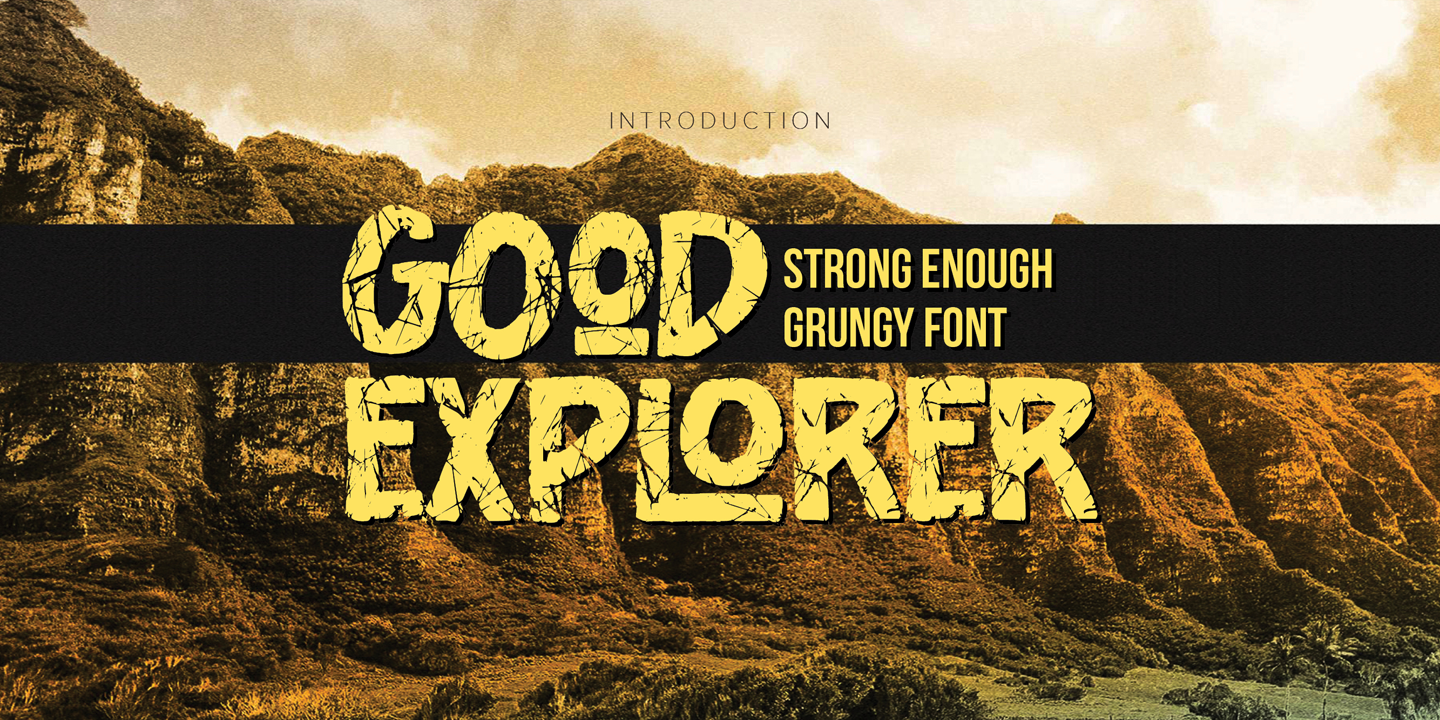
Good Explorer Font is perfect for adventure travel branding, outdoor gear packaging, expedition company logos, nature documentary titles, camping equipment labels, hiking trail signage, wilderness photography portfolios, and exploration-themed marketing campaigns. This adventurous typeface excels in applications where discovery spirit and outdoor exploration are essential.
What makes Good Explorer Font so exciting is its inspiring ability to capture the boundless spirit of discovery and adventure through dynamic letterforms that embody the thrill of exploring uncharted territories and natural wonders. The font features energetic character shapes with compass-inspired details and expedition-influenced styling that evoke images of mountain peaks, forest trails, and exciting geographical discoveries. Its adventure-driven design philosophy combines exploration authenticity with contemporary functionality, making it perfect for outdoor brands seeking to convey wanderlust, discovery passion, and connection to nature exploration and adventure travel communities.
Good Explorer Font belongs to the adventure display font family, specifically designed for outdoor and exploration-themed branding applications. This typeface family emphasizes dynamic visual impact through expedition-inspired styling and adventure character elements, ensuring authentic exploration presentation across various outdoor and travel-focused design projects.
Embark on creative adventures with Good Explorer Font Free Download, a typeface that embodies the inspiring spirit of natural exploration and discovery passion. This dynamic font delivers exceptional character for adventure applications, featuring comprehensive letterforms with expedition details and exploration punctuation marks that capture the essence of wilderness discovery and outdoor adventure. Its energetically crafted design maintains excellent visibility while preserving the authentic adventure aesthetic across various sizes, from small compass engravings to massive national park entrance signs. The font's distinctive exploration personality makes it invaluable for designers creating outdoor brands, adventure travel materials, and exploration content where conveying wanderlust, discovery spirit, and natural adventure is crucial for connecting with outdoor enthusiasts and adventure travel communities seeking authentic wilderness experiences.